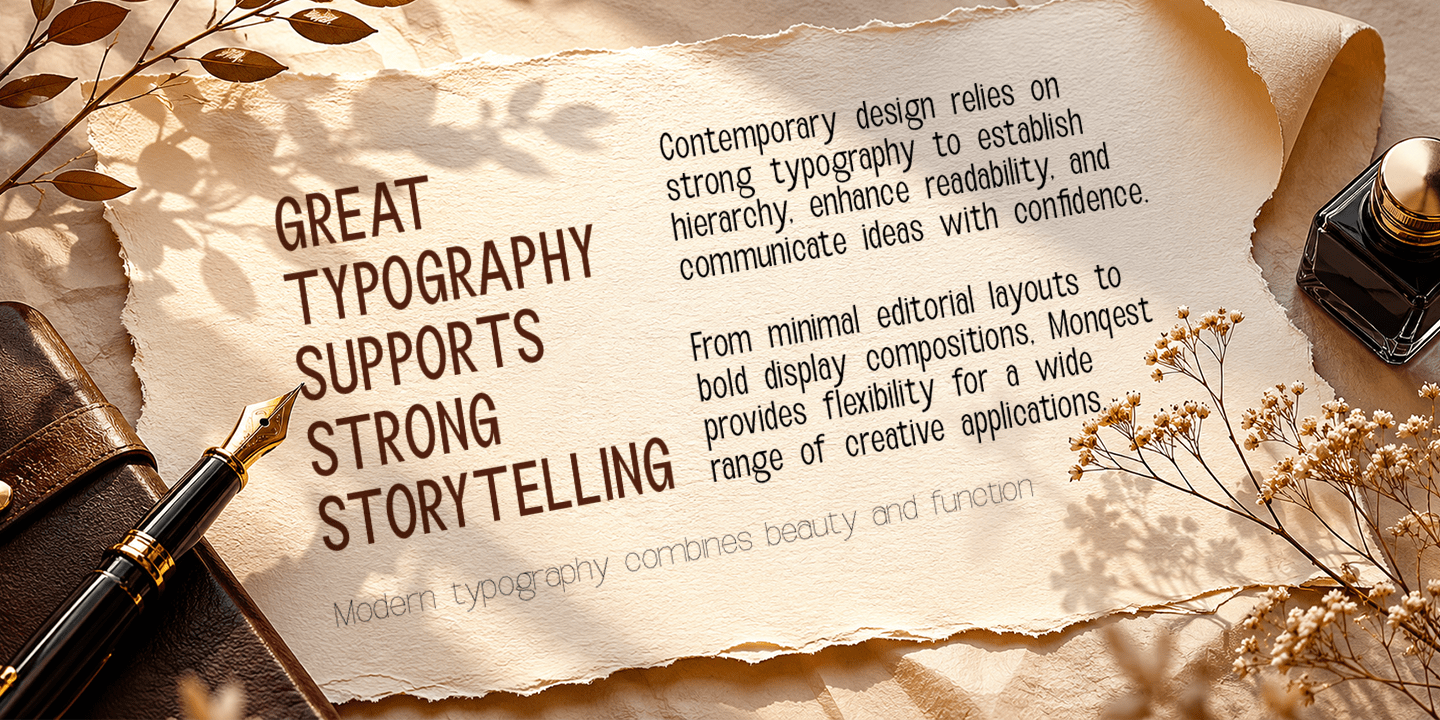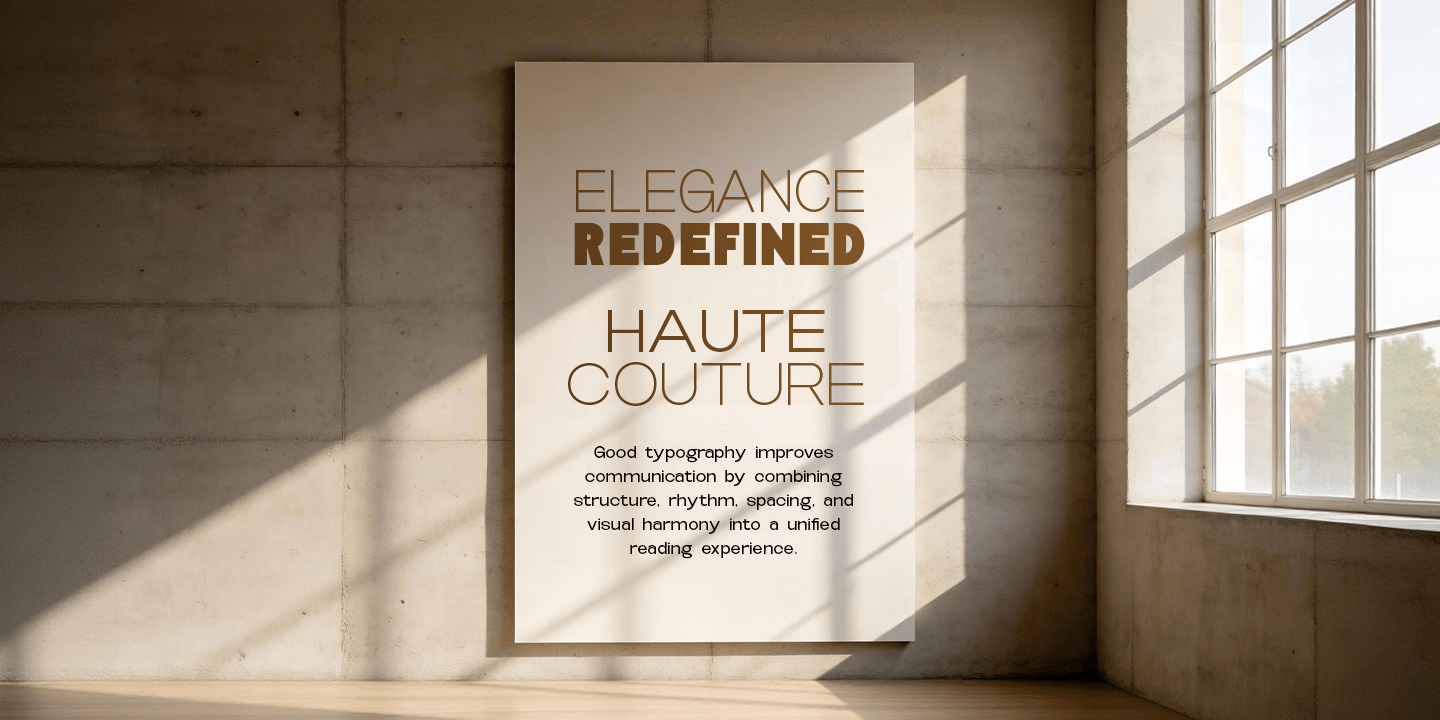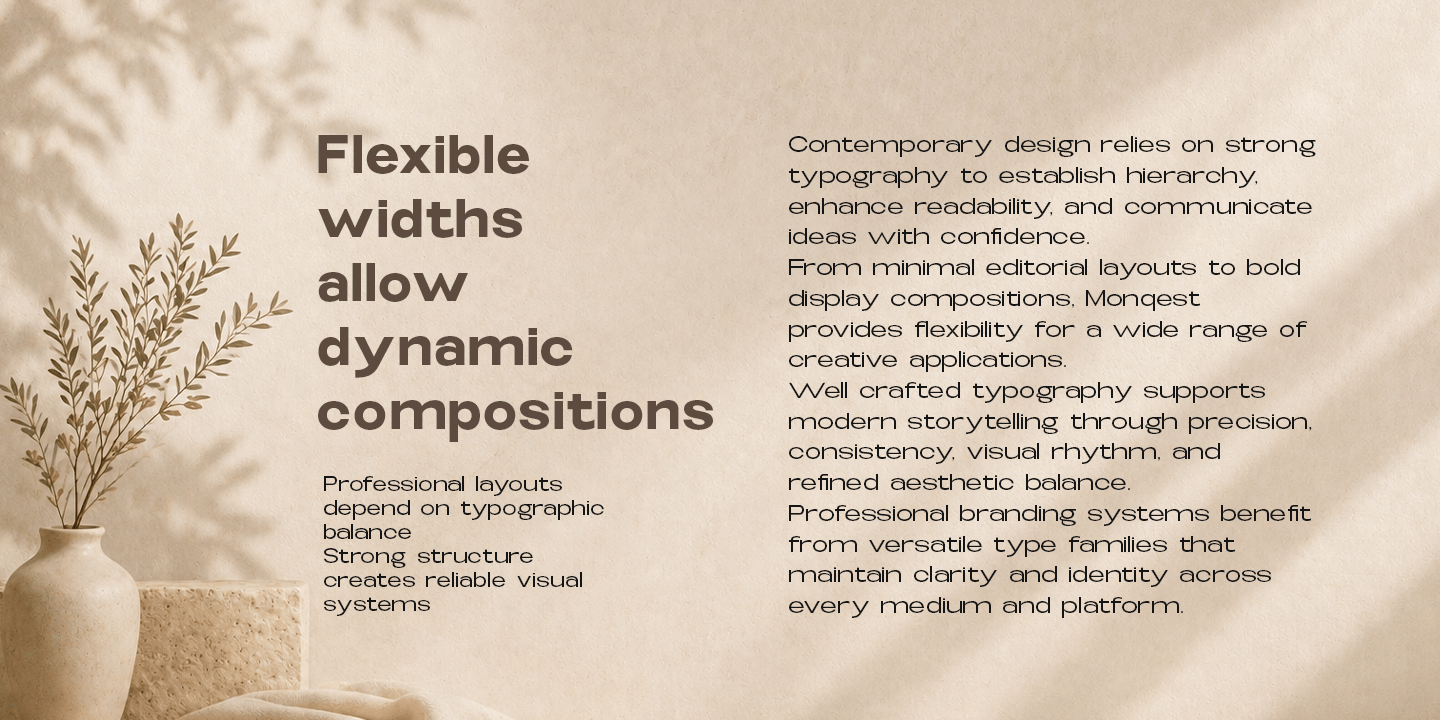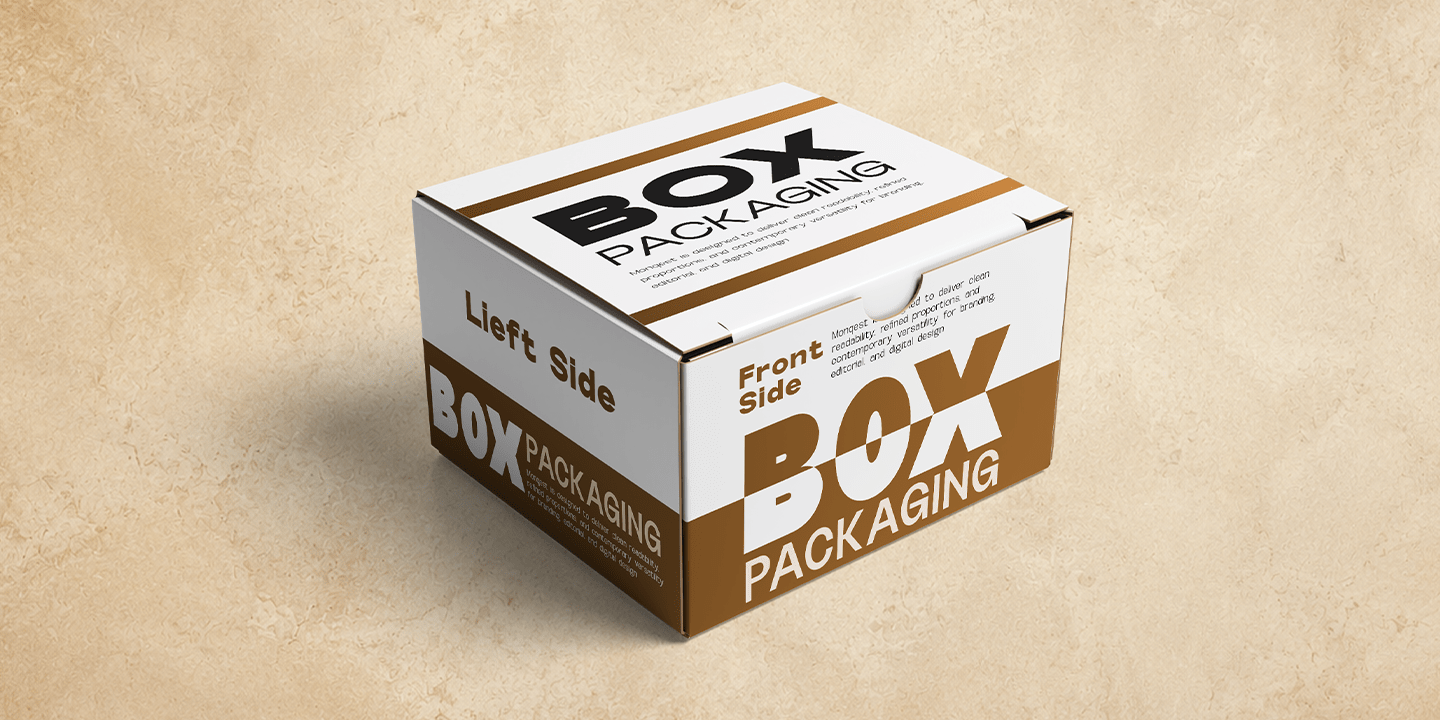
Monqest
Monqest — Sans Serif Superfamily
Monqest is a contemporary sans serif superfamily designed with precision, versatility, and modern clarity in mind. Built to perform across branding, editorial layouts, digital interfaces, motion graphics, and corporate communication, Monqest balances geometric structure with subtle humanist warmth for a refined and highly functional appearance.
The family spans multiple width categories: Condensed, Semi Condensed, Normal, Semi Expanded, and Expanded. This gives Monqest exceptional flexibility for both compact typography and spacious display compositions. From tight headlines to clean body text, Monqest adapts effortlessly to a wide range of visual environments.
Featuring upright styles from Thin to Black, the typeface delivers a complete spectrum of typographic expression. Lighter weights provide elegance and minimalism, while heavier styles create strong visual impact with confident readability. Carefully engineered proportions, smooth curves, and balanced spacing ensure consistency throughout all 45 fonts in the family.
Monqest is ideal for:
- Modern branding systems
- Editorial and publishing
- UI/UX and web design
- Posters and advertising
- Technology and corporate identities
- Packaging and motion graphics
Its clean construction and contemporary personality make Monqest equally suitable for minimalist layouts and bold visual statements. Whether used in large-scale display typography or detailed interface text, Monqest maintains clarity, rhythm, and sophistication.
Family Structure — 45 Fonts
Width Categories
- Monqest Condensed
- Monqest Semi Condensed
- Monqest Normal
- Monqest Semi Expanded
- Monqest Expanded
Monqest combines modern grotesk aesthetics with a flexible superfamily system, making it a powerful typographic tool for contemporary designers seeking consistency, range, and visual character.